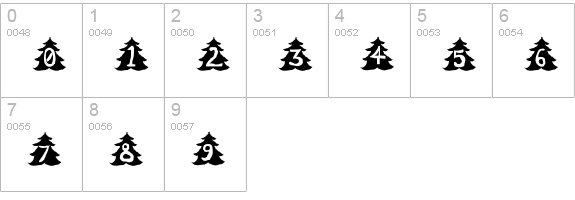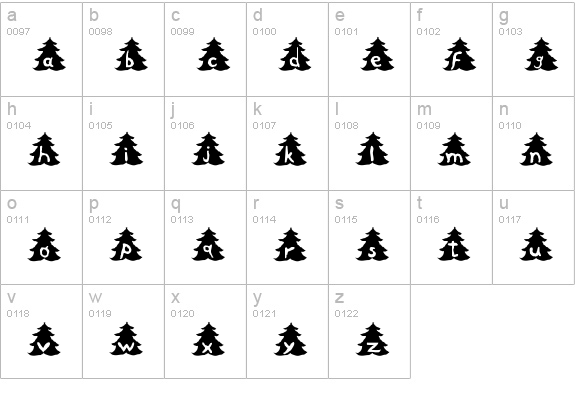
Christmas Tree Font Details
The Christmas Tree font is a whimsical and festive typeface that perfectly captures the spirit of the holiday season. With its charming tree-inspired design, this font is the perfect choice for adding a touch of Christmas magic to your projects. Whether you're creating greeting cards, party invitations, or holiday-themed designs, the Christmas Tree font is sure to bring a smile to your audience's faces. What's even better is that this delightful font is available for free download at FontsMarket.com. That's right, you can add this fun and festive font to your collection without spending a dime. Don't miss out on the opportunity to spread some holiday cheer with the Christmas Tree font - download it today and let your creativity shine!